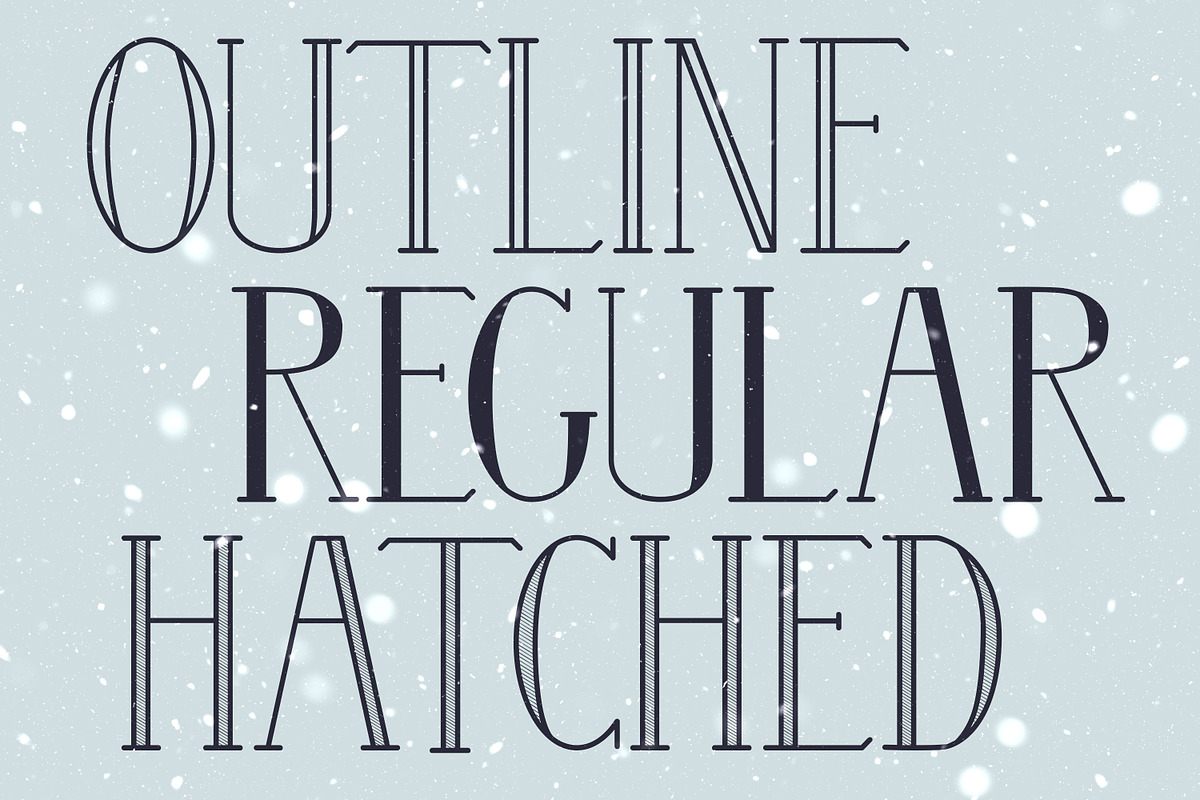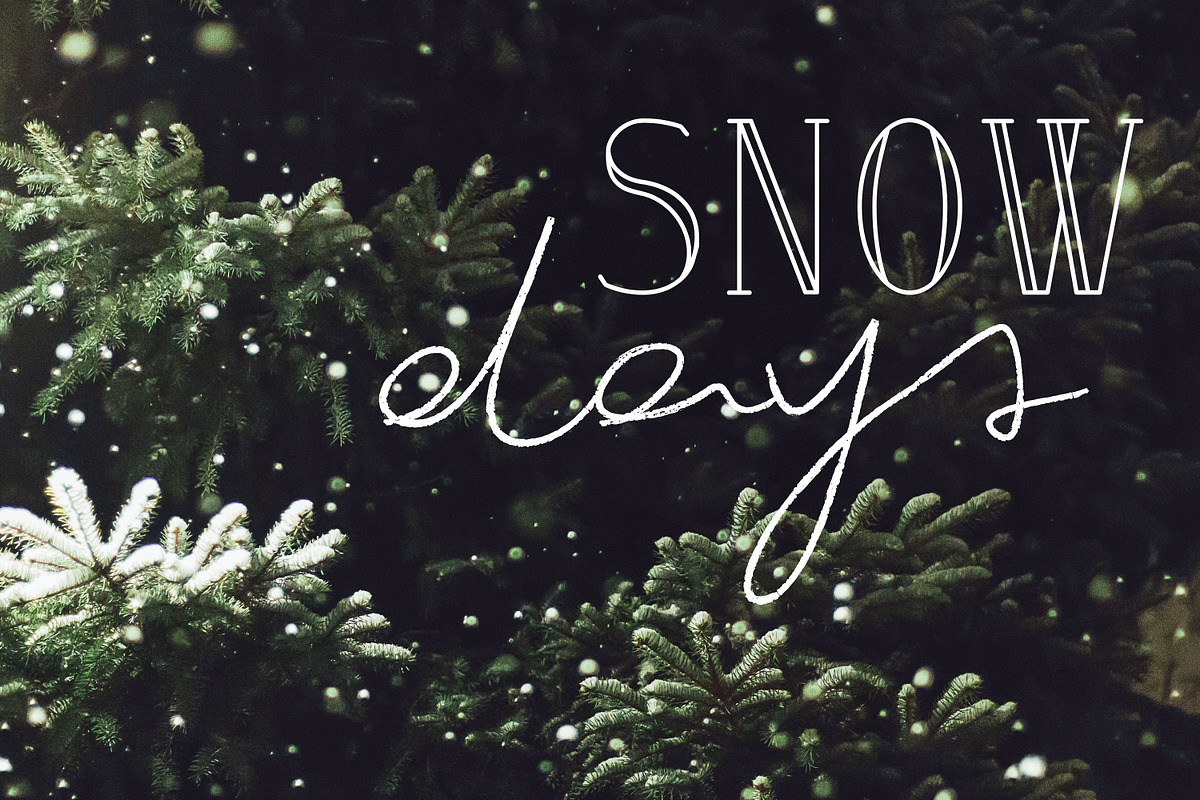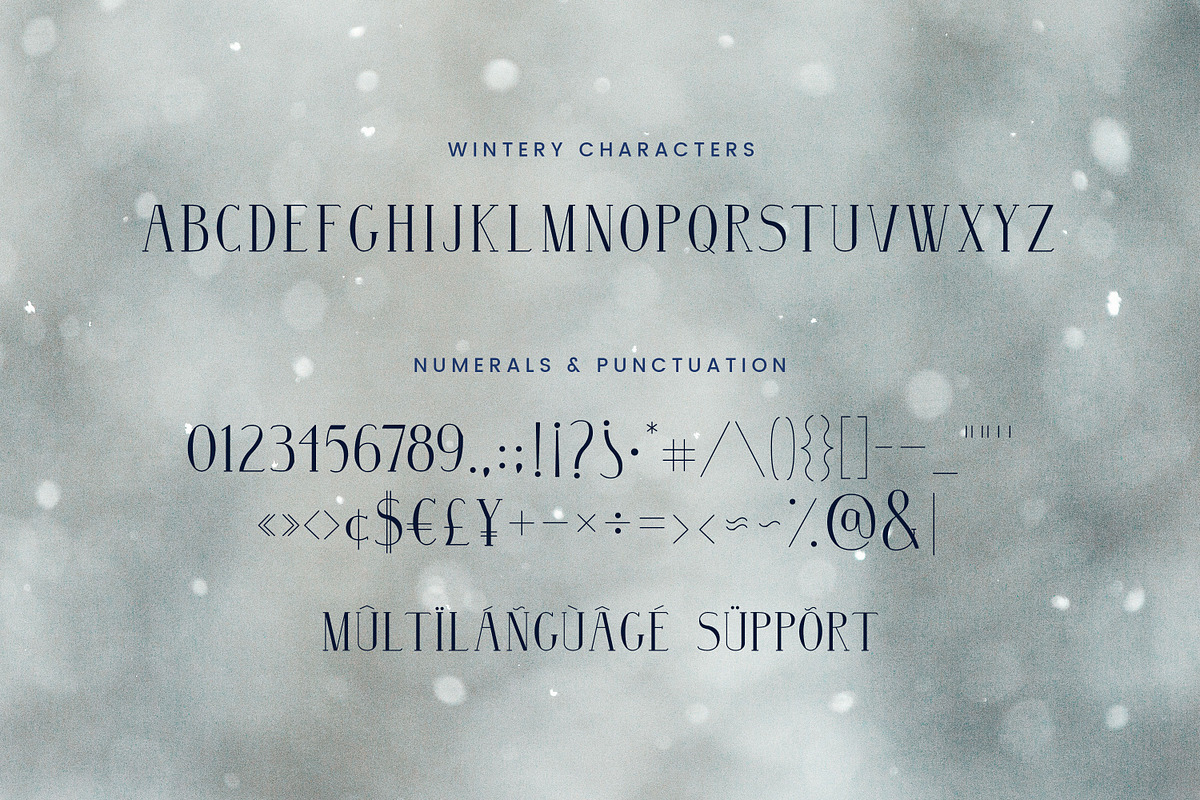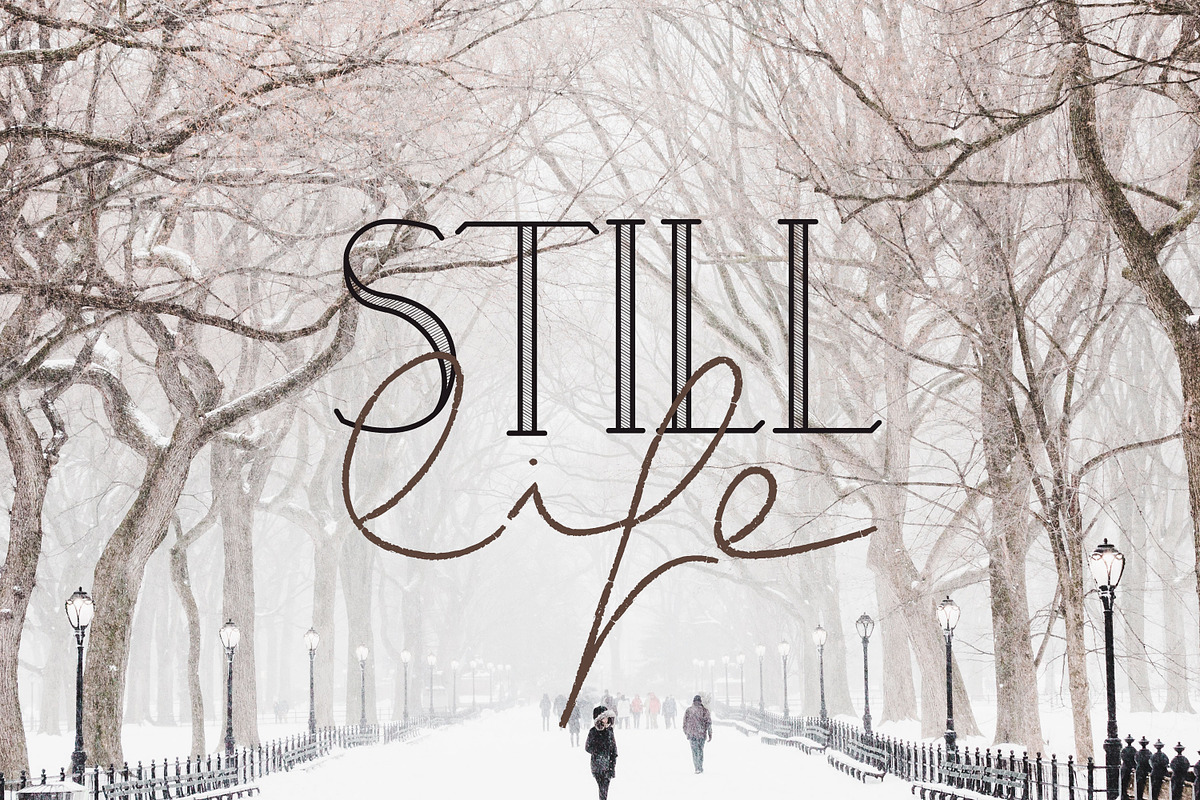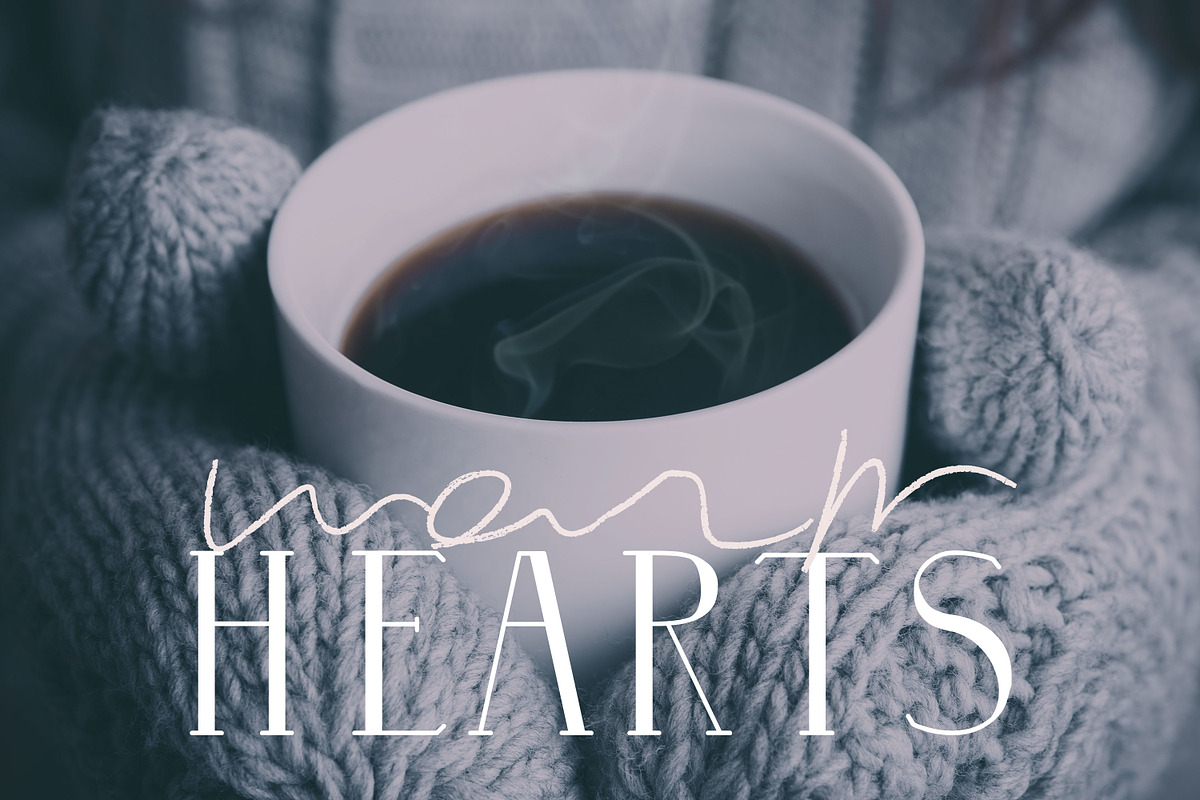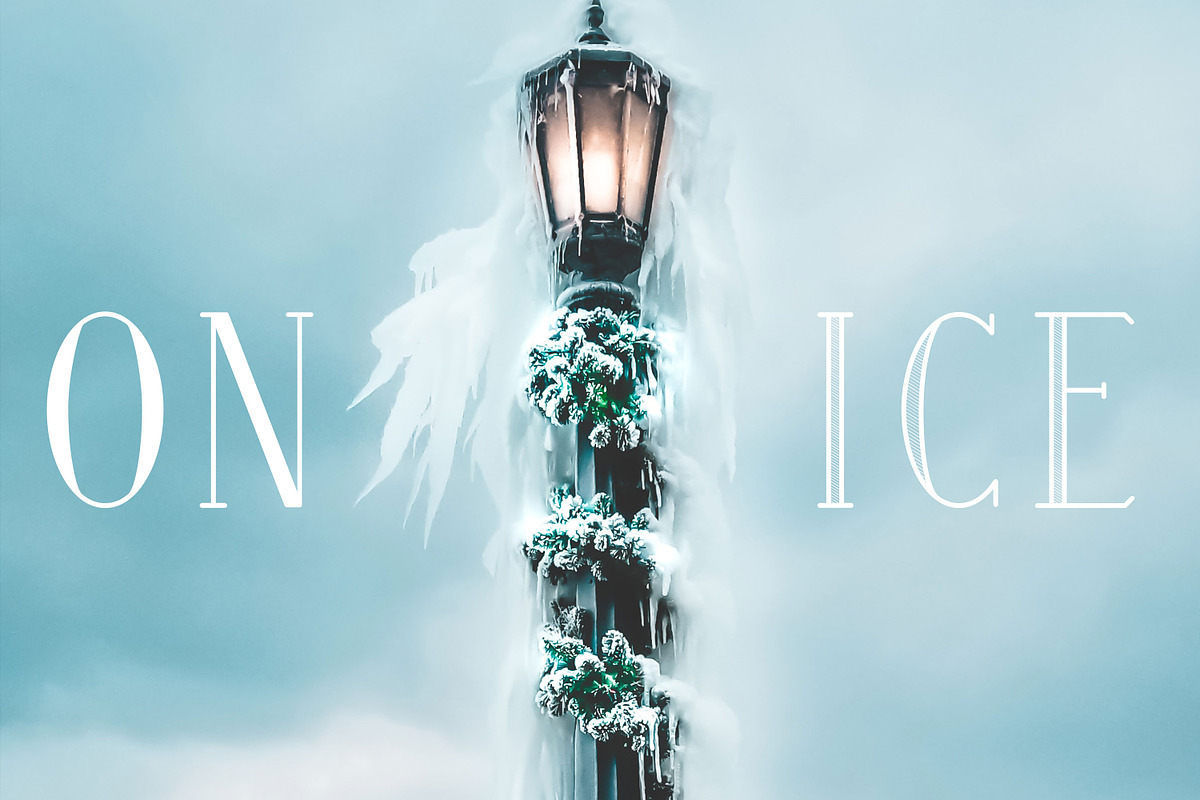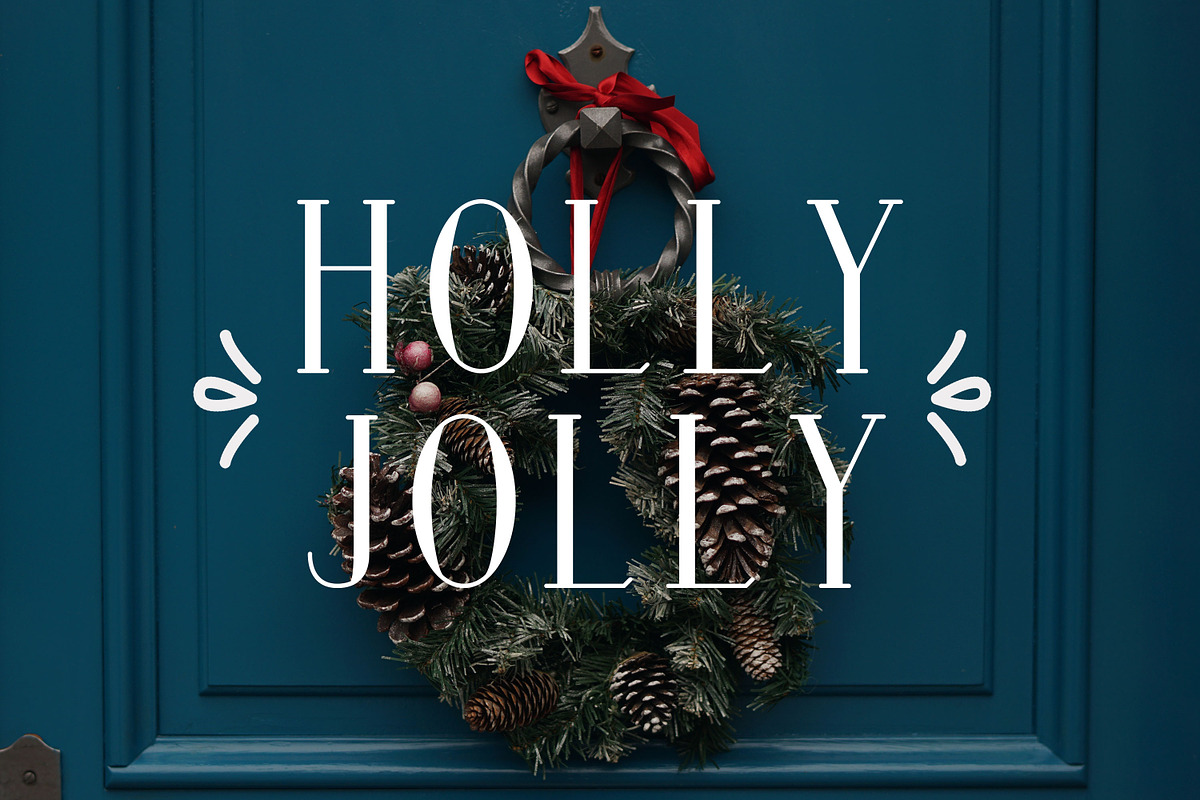
Wintery | Font Family
Wintery: an all caps serif font family, with a regular, outline and hatched version. This elegant font with its straight lines and alternate versions will help you create a classy holiday design.
- Numerals, punctuation and multilanguage support
- This font pairs very well with Le Kilimanjaro - A Handwritten Script.